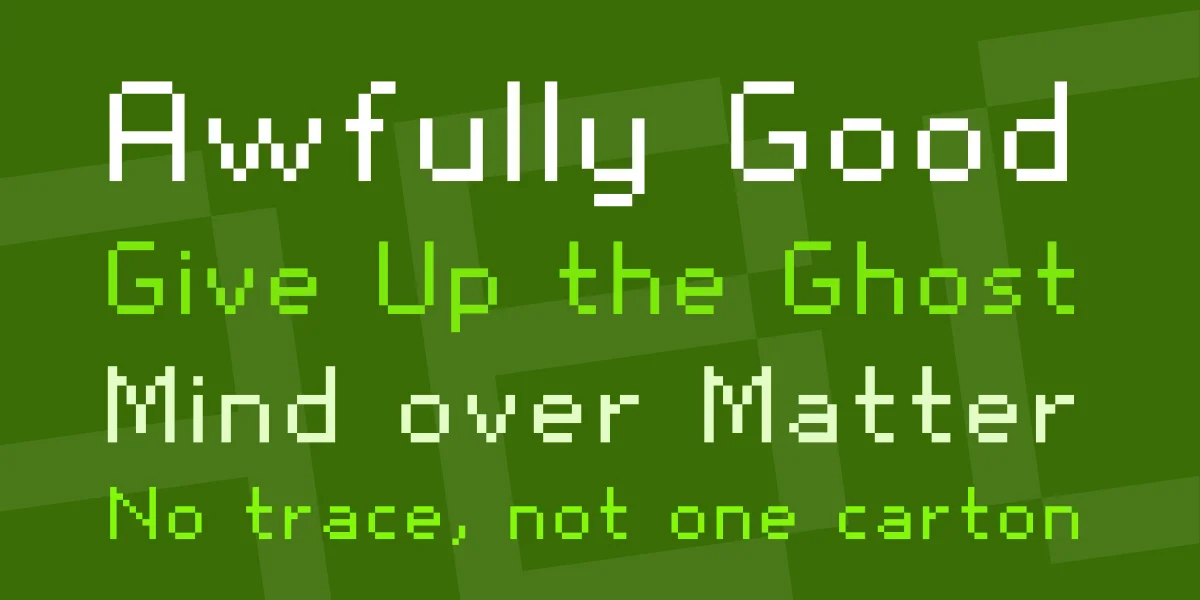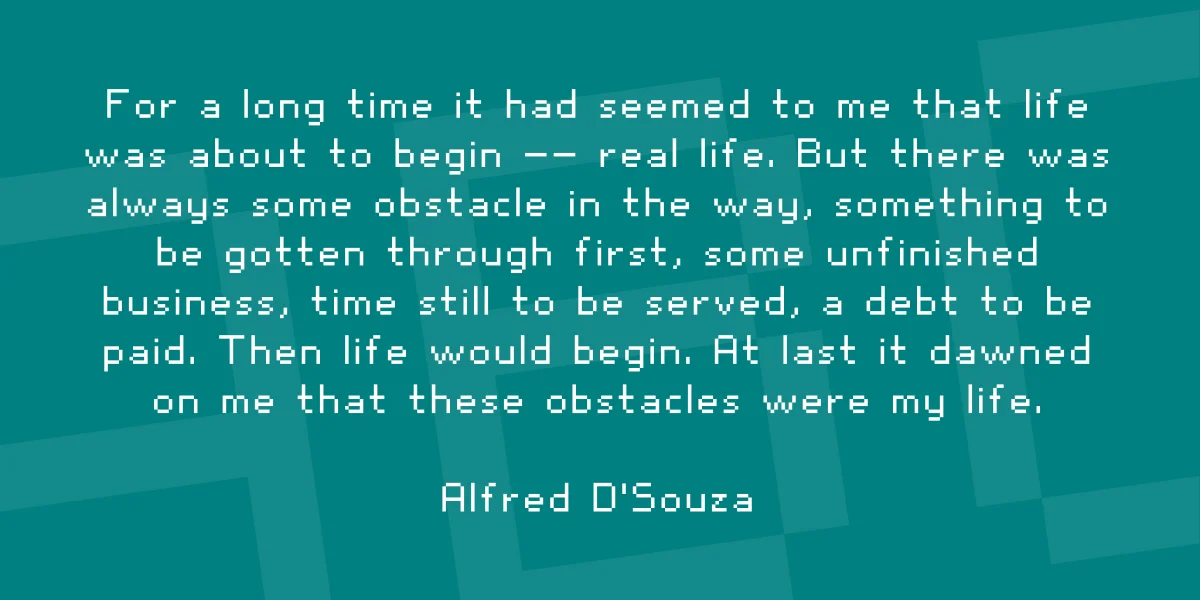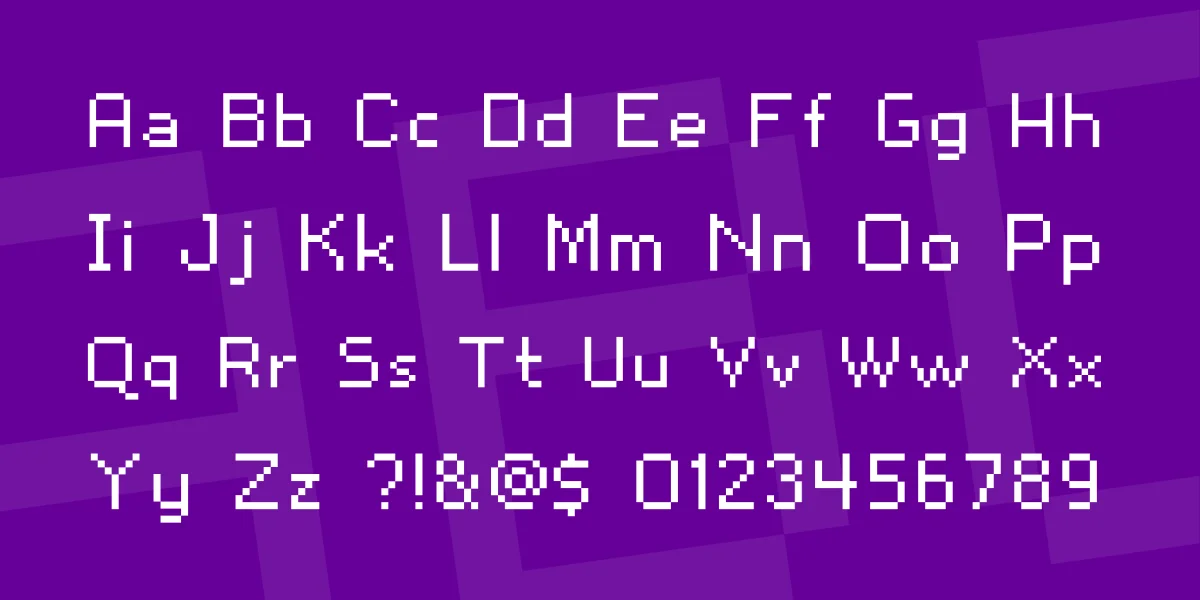
(All keyboard characters, some foreign/special) -- I needed one of those cute screen fonts for one of my websites (snoot.org), so I cooked one up. It's just a tiny bit awkward, just the way I like it! The pixel-perfect size is 10 points with the windows renderer and, 14 points (??) with the Photoshop 6 text tool. For god's sake, don't anti-alias this, and don't use it for anything other than the screen.